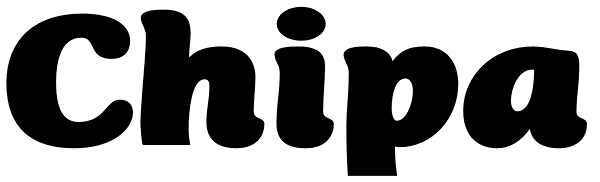
Chipa
Chipa has all the advantages of OpenType technology that allows a variety of combinations: Swashes, old style numerals, standard ligatures, contextual alternates, discretional ligatures, word ending and tails. These fonts were specially designed for...